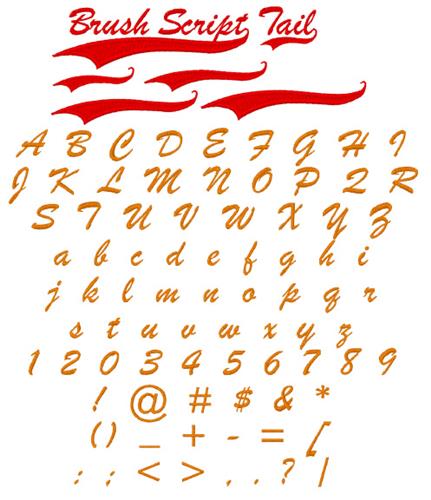
Internet Stitch is happy to present Brush Script MT machine embroidery font which has Flowing cursive script style embroidery font in dynamic red thread with artistic tails. Ideal for personalizing totes and shirts. Available in PES, DST, and 10 other formats. included. If you would like to view more embroidery fonts and alphabets please search our embroidery fonts page.